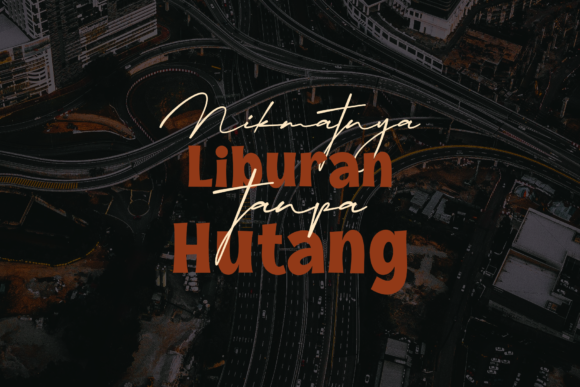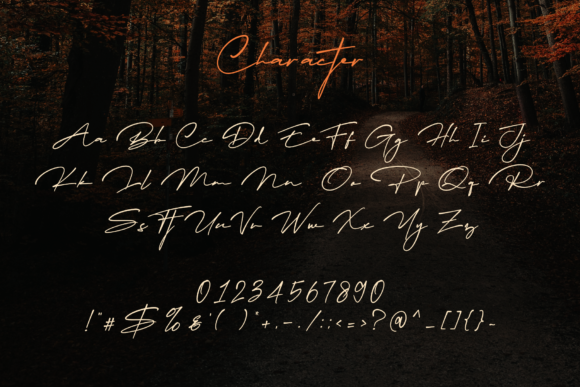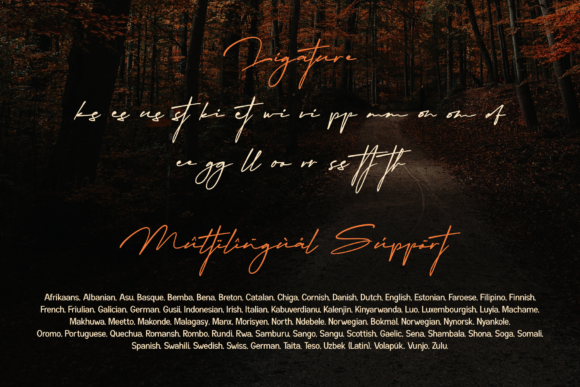
About Migratory Font
Migratory is a classy modern handwritten font with a casual and carefree style that looks as authentic as possible, still legible, and elegant in your projects. You can use it in elegant and high-quality design projects such as company logo designs, event titles, brand advertisements, premium products, and others.